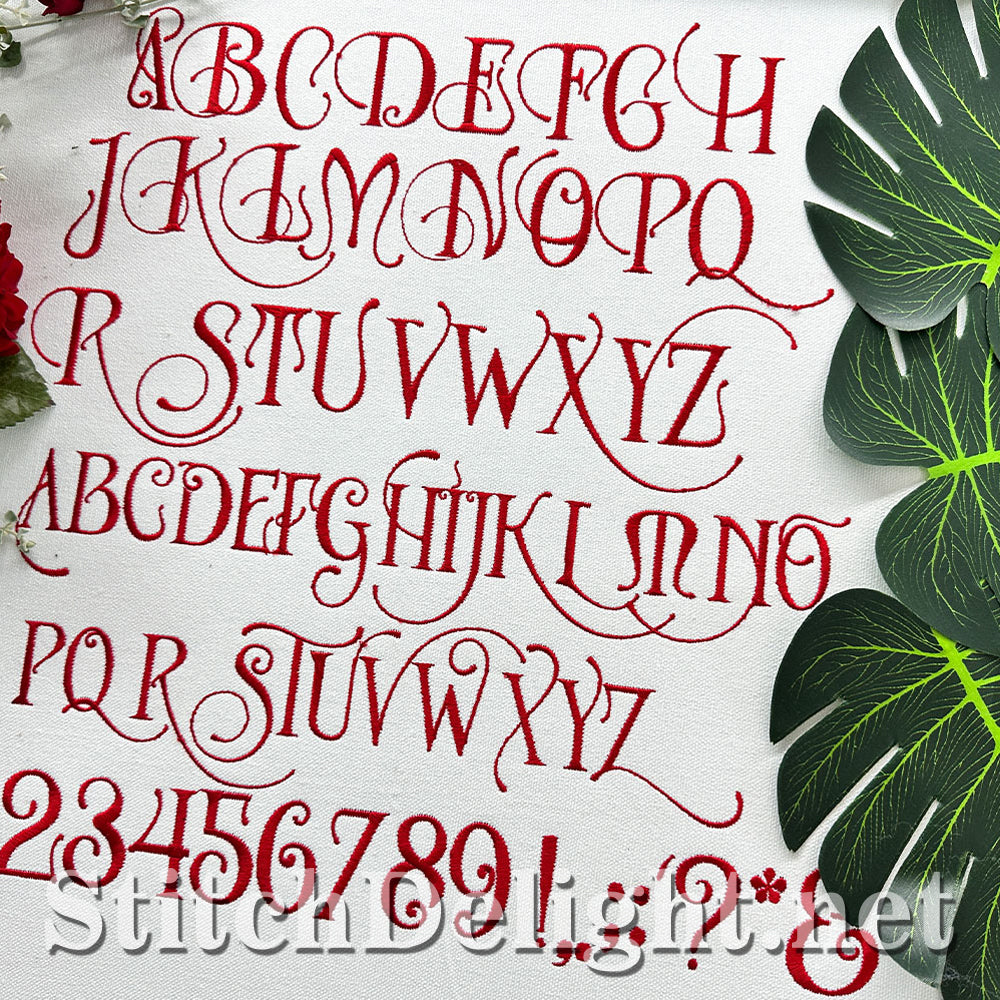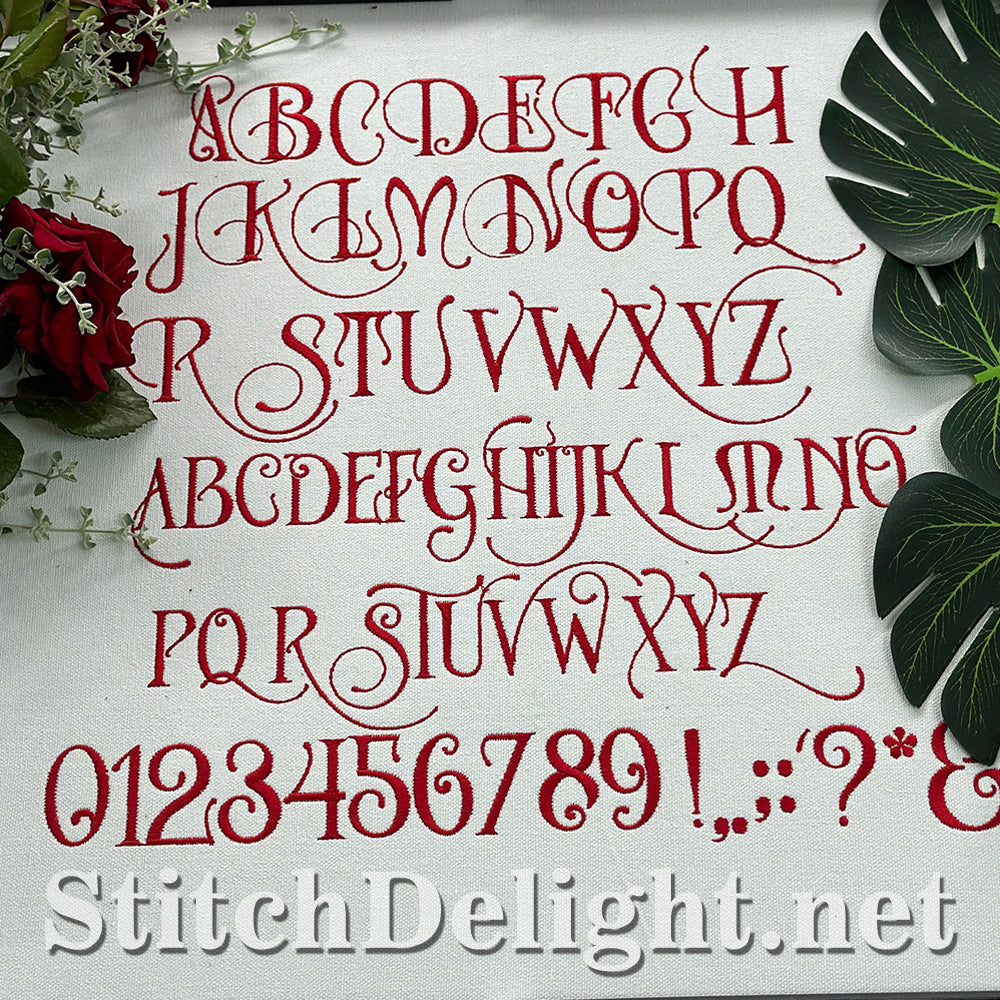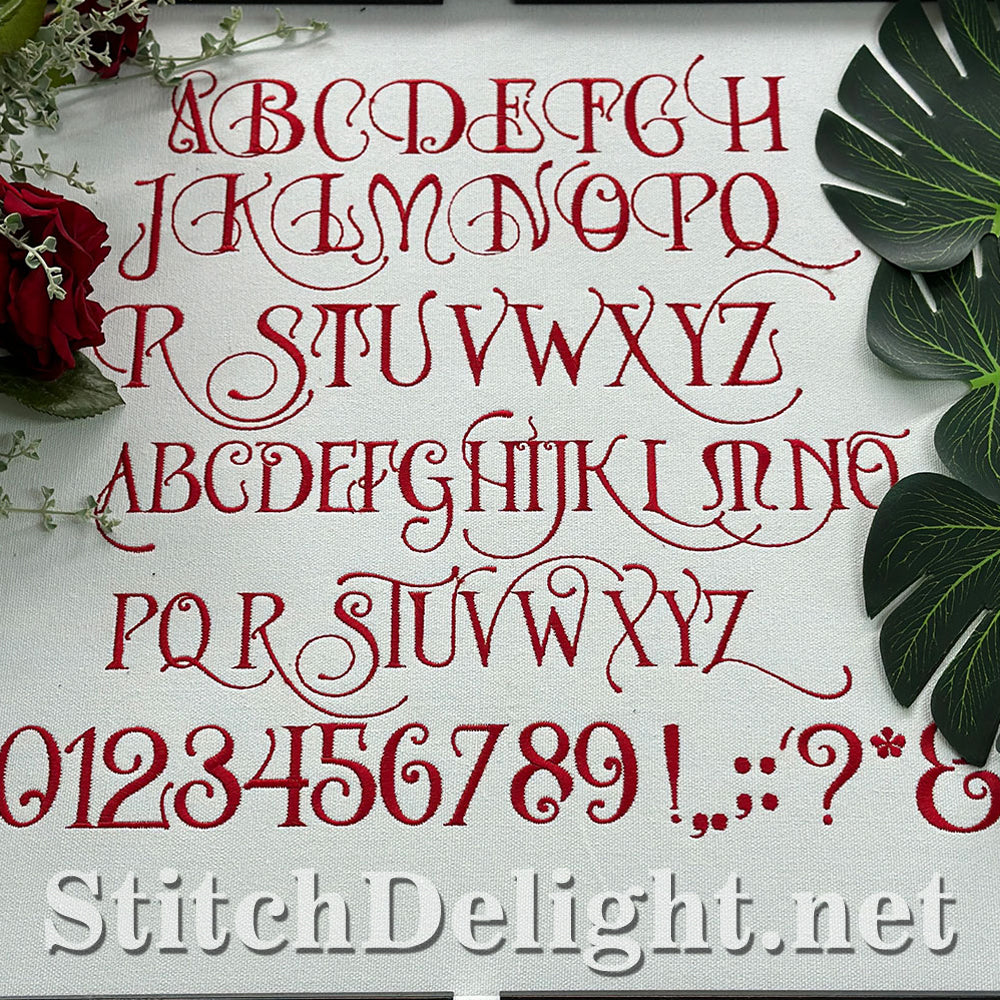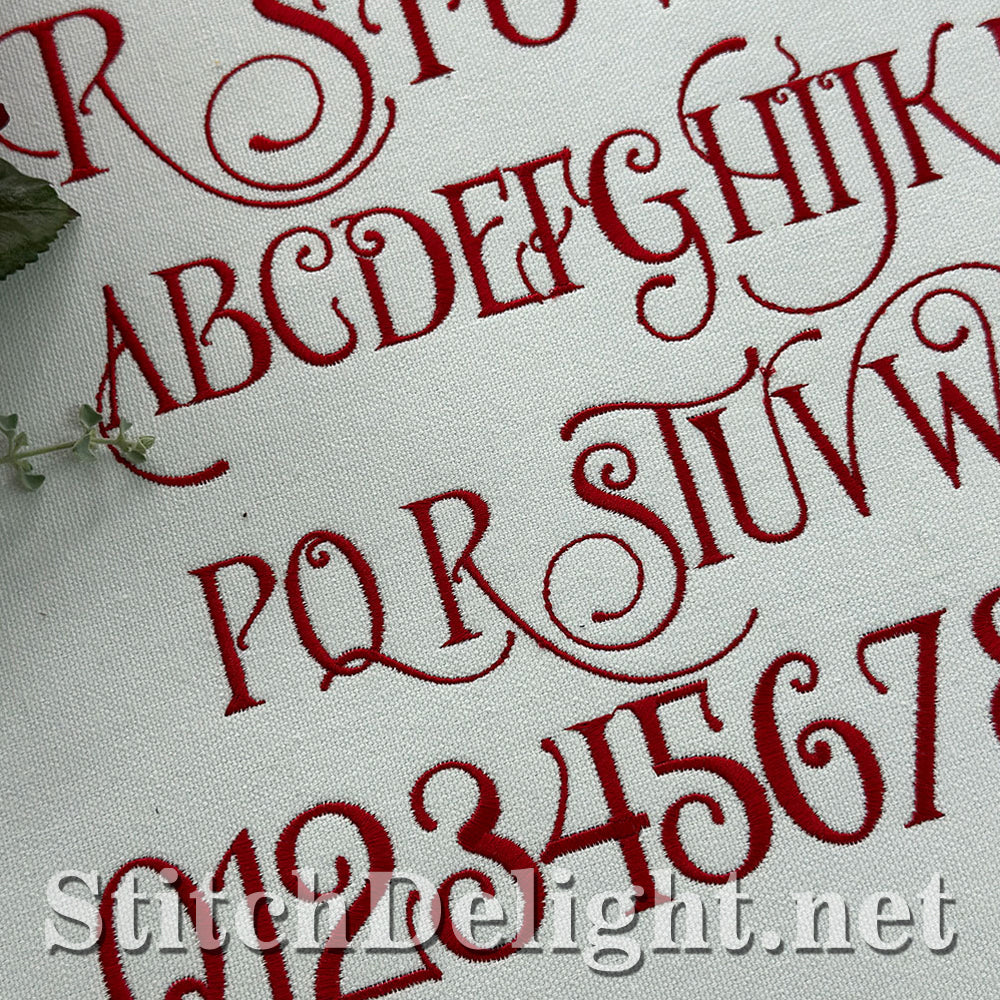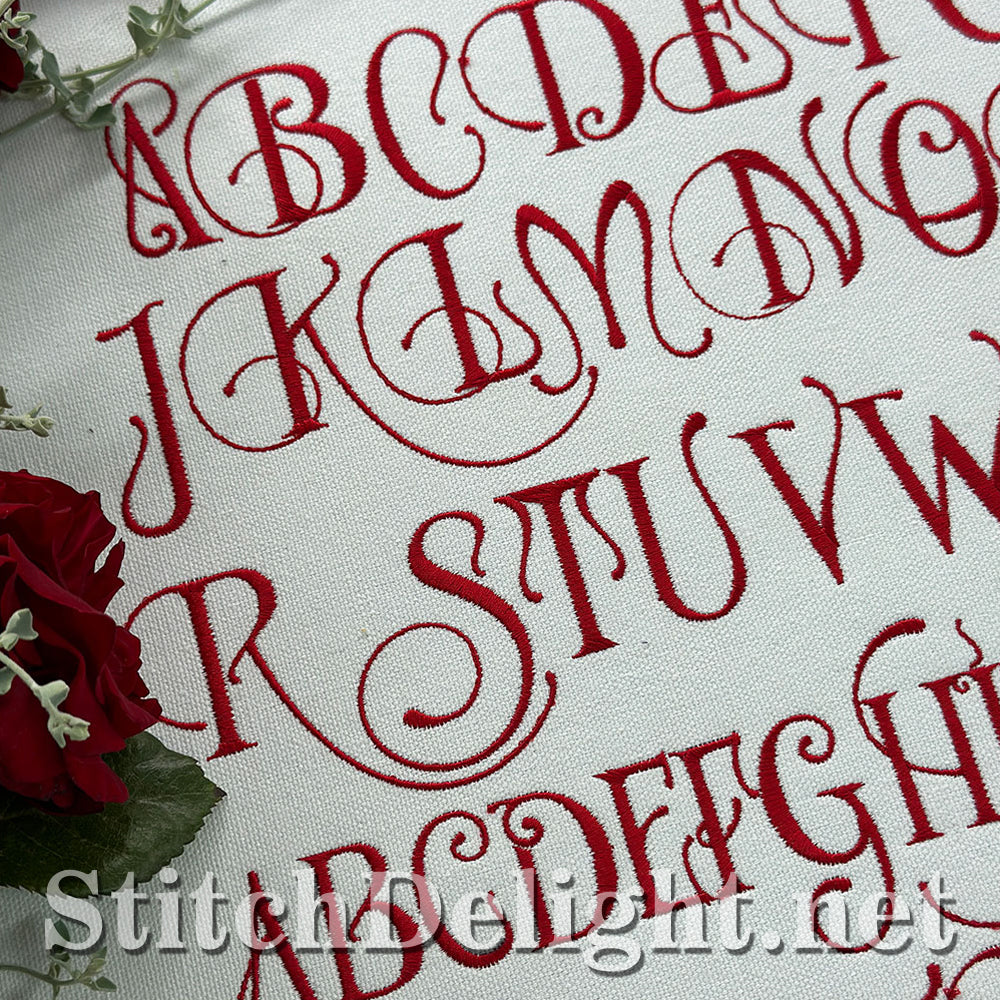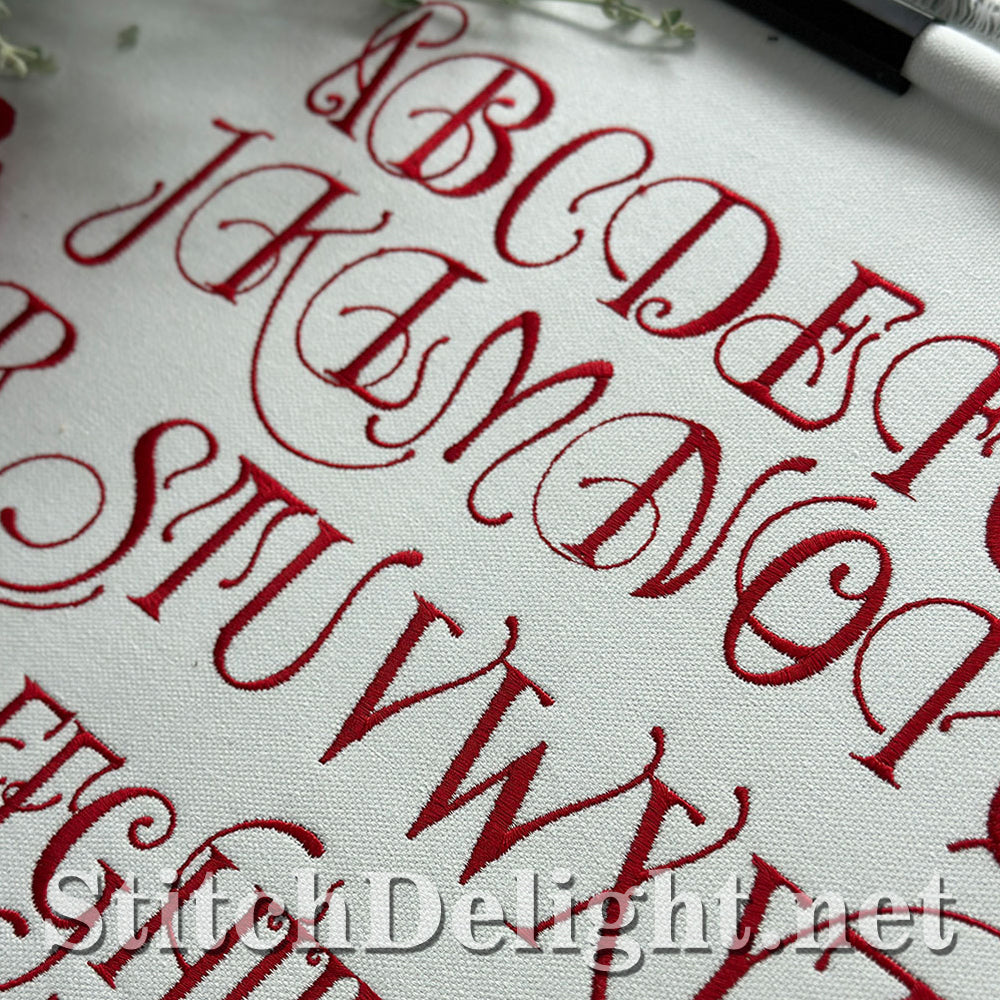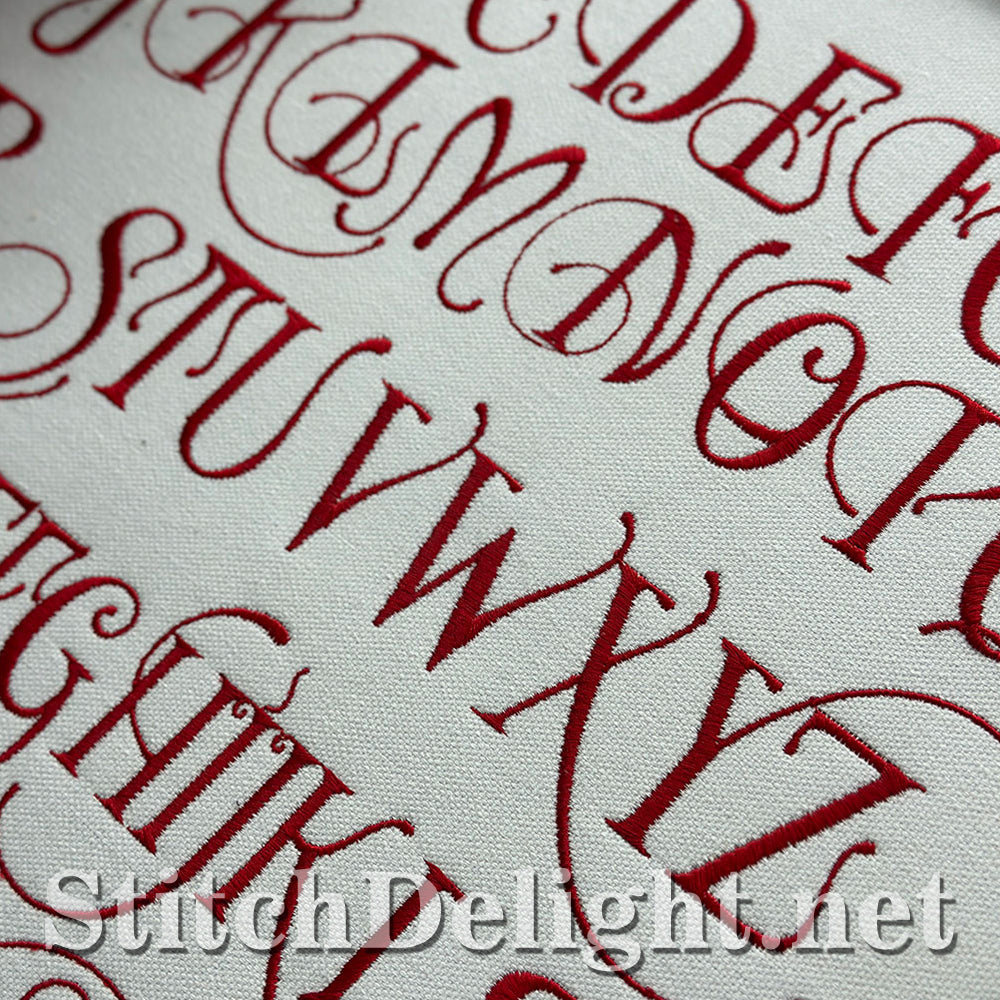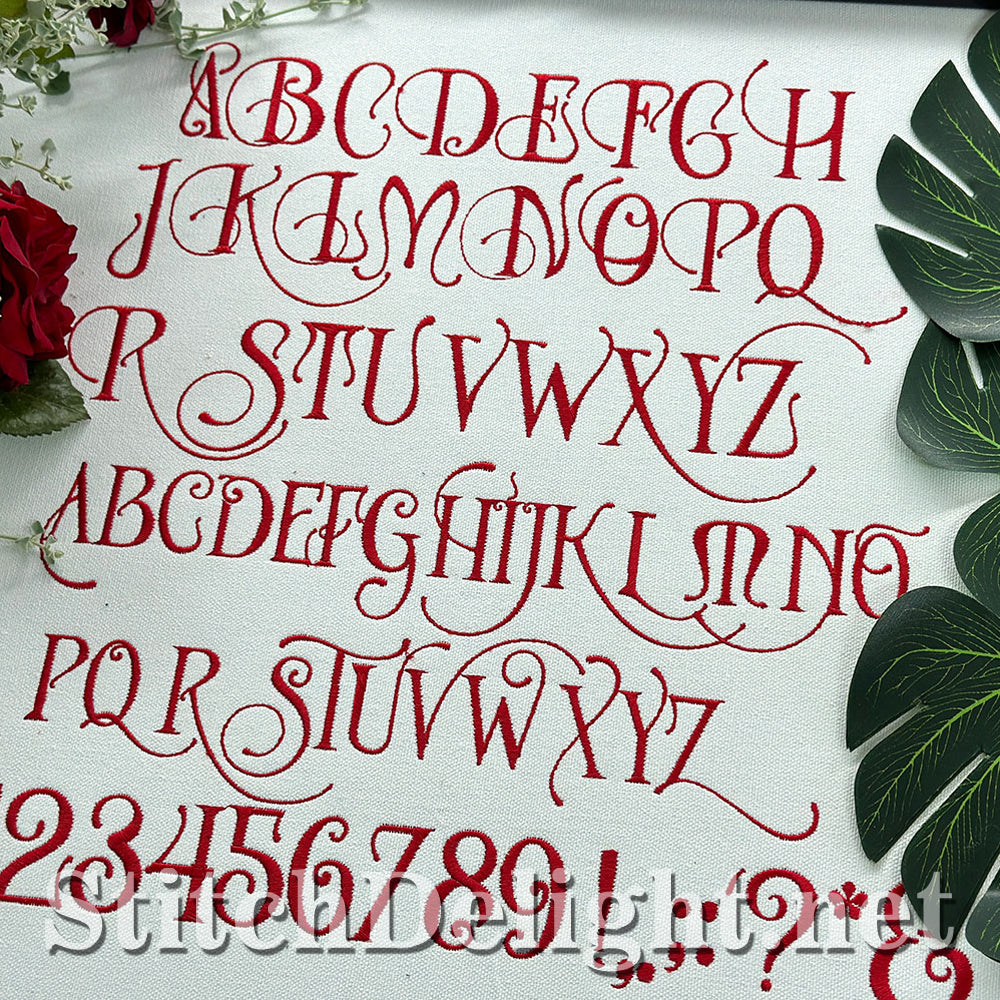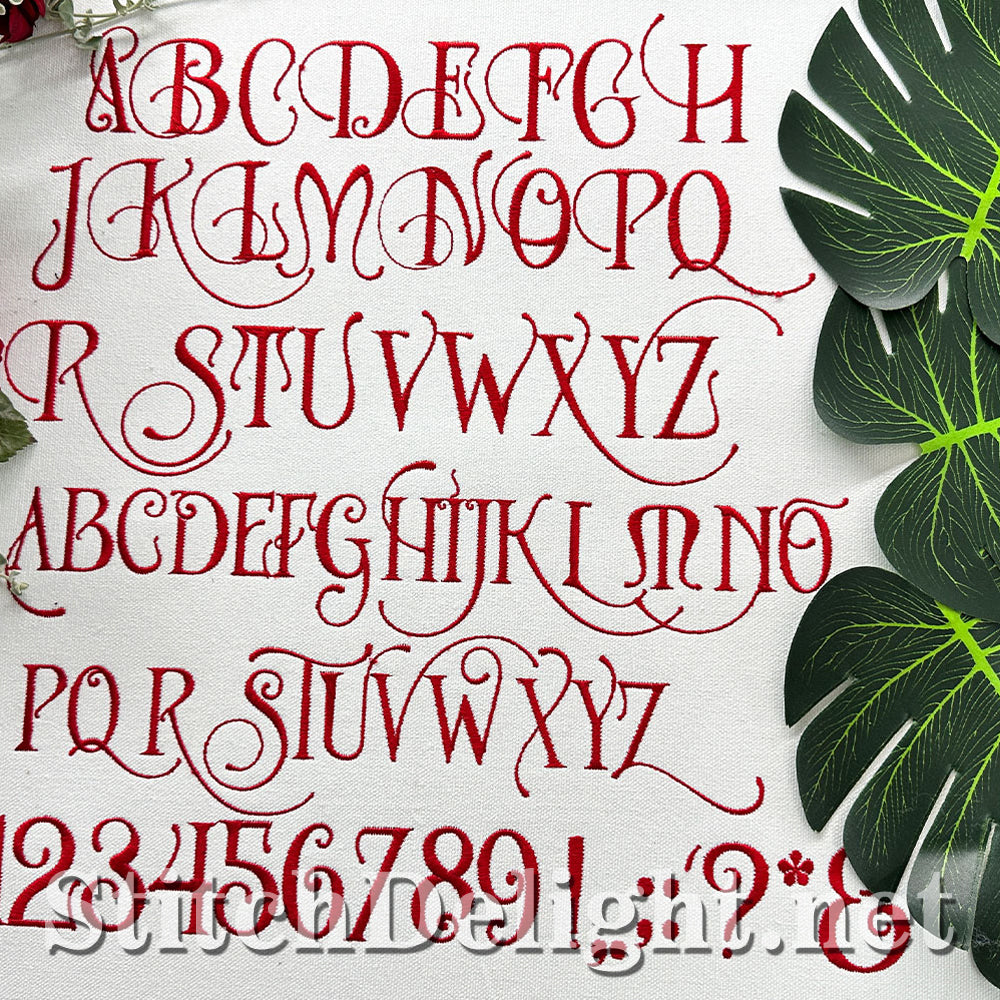
This stunning festive font with elegant tails has a letter height of .9inch and perfect for your Christmas projects. BX format is included. As used in the Nutcracker Quote in the word Joy